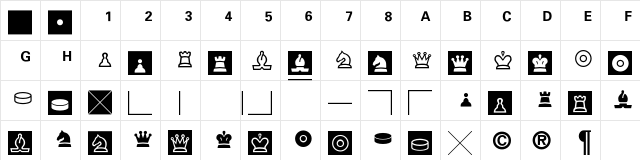
E2E4 Regular
Design Context for E2E4 Typeface
E2E4 is a composed and adaptable typeface that performs quietly and consistently across a wide range of design contexts.